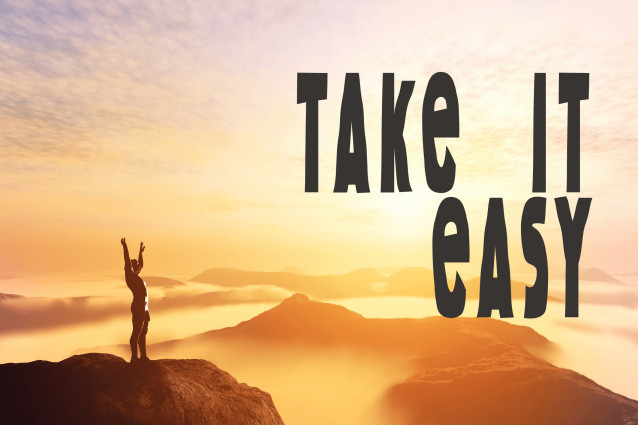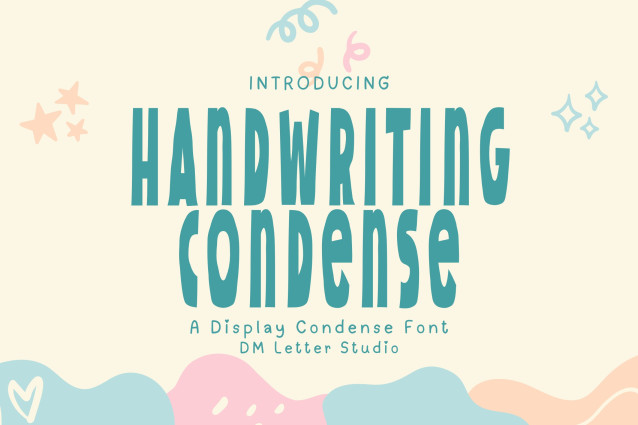
Handwriting Condense Font
Handwriting Condense Font is a modern, compact handwritten font that brings elegance and clarity to tight design spaces. With its sleek lines and hand-crafted charm, this font is perfect for quotes, branding, social media posts, minimalist logos, packaging, and editorial designs where space matters without sacrificing personality.